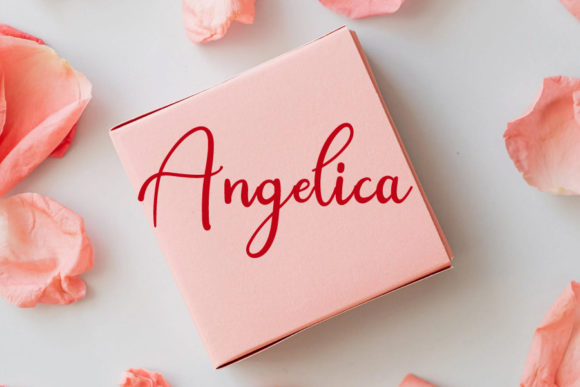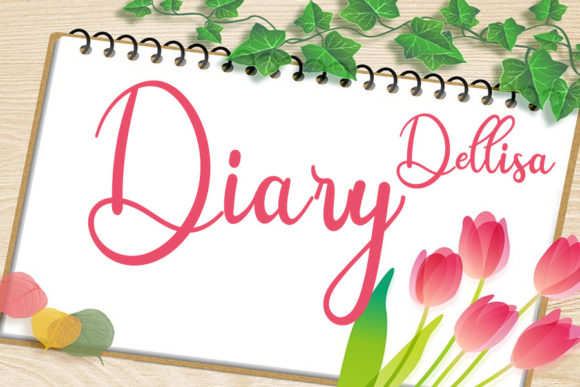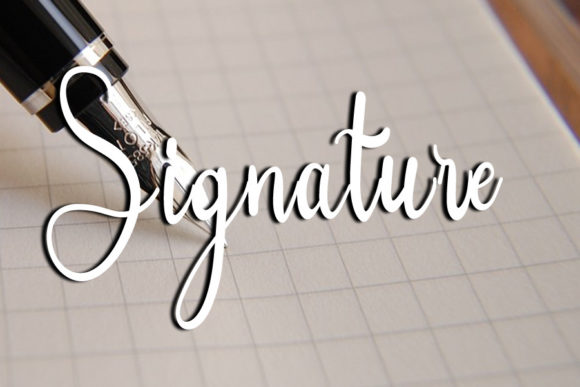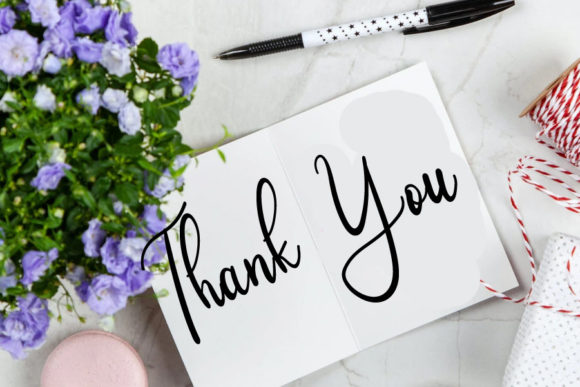
Dellisa Font
About Dellisa Font
“Dellisa” is a delightful script font that showcases charming and playful characters, giving the impression of dancing along the baseline. Incorporating this font into your creative projects can truly make them shine and stand out in a unique way.
The font’s lovely and whimsical letterforms bring a sense of joy and liveliness to your designs. Whether you’re working on invitations, greeting cards, posters, or digital graphics, “Dellisa” has the ability to infuse your creations with a touch of enchantment.
The font’s playful nature allows it to complement a wide range of design ideas. Its distinctive appearance can add a dose of creativity and vibrancy to both fun and more formal projects. By integrating “Dellisa” into your designs, you add a layer of visual interest and artistic flair that captures attention.
In essence, “Dellisa” is more than just a font—it’s a creative tool that elevates your ideas with charm and personality. Its playful characters, combined with their dancing quality along the baseline, make it a valuable asset for designers seeking to create captivating and uniquely expressive designs.